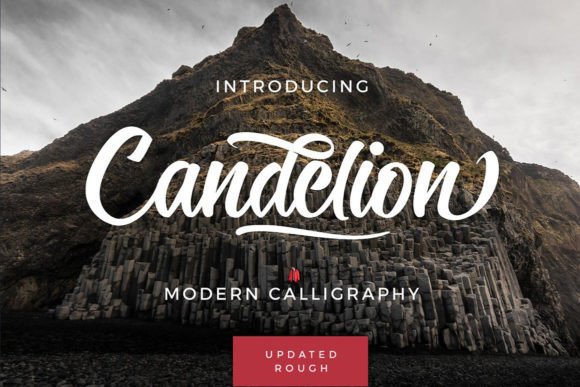
The Candelion Font: A Modern Script with a Touch of Sophistication
I’ll never forget the design project that led me to discover the Candelion font. I was working on a branding project for a new boutique, and my client specifically asked for a logo that exuded creativity, freedom, and a touch of sophistication. As I scrolled through font after font, nothing seemed quite right – until I stumbled upon Candelion. Its unique, flowing strokes and minimalist design instantly captured the essence of my client’s vision. In this article, I’ll share my love for the Candelion font, its features, and how to make the most of it in your designs.
- ✨ Unique and unconventional letter shapes that add an artistic flair to any design
- ✅ Flowing, organic strokes that evoke a sense of creativity and freedom
- ✅ Minimalist design that adds a touch of sophistication
- ✅ Perfect for logos, packaging, and social media graphics
While Candelion is an amazing font, there are a few things to keep in mind:
- ⚠️ Some letters may require manual kerning for optimal spacing
- 🤔 Limited use of uppercase letters, but the font makes up for it with stylish alternates
The Story Behind Candelion
Candelion was designed by a young, talented typographer who drew inspiration from nature and the world around her. She wanted to create a font that captured the essence of creativity and freedom, while still being sophisticated and elegant. The result is a truly unique font that’s perfect for designers, crafters, and creative hobbyists alike.
Q: What is the Candelion font best used for?
A: Candelion is perfect for logos, packaging, social media graphics, and any design project that requires a touch of creativity and sophistication.
Q: Is Candelion a difficult font to use?
A: Not at all! Candelion is relatively easy to use, and its OpenType features make it simple to add variety and interest to your designs.